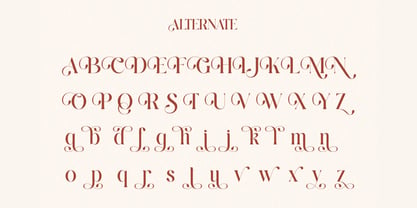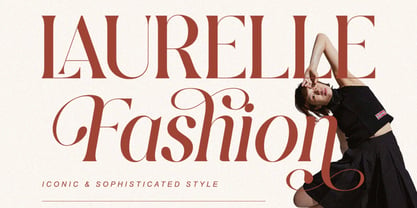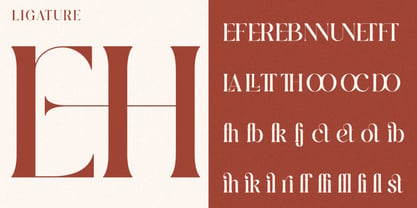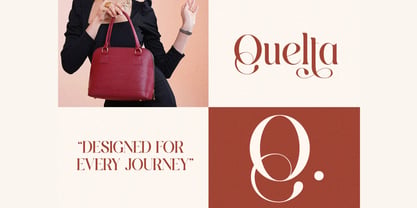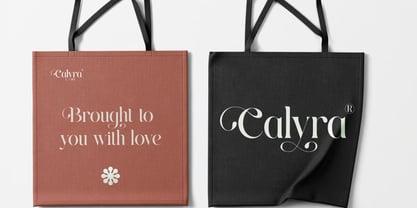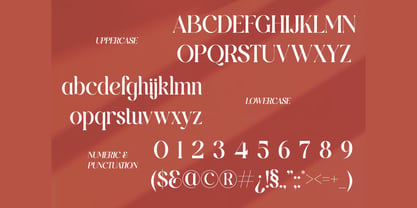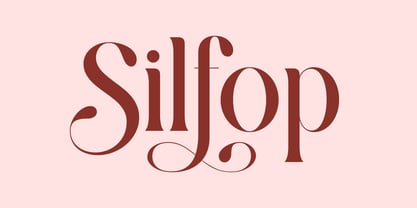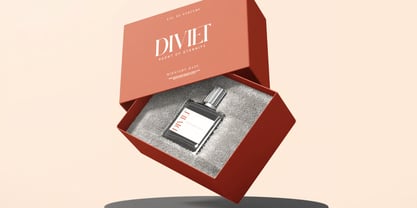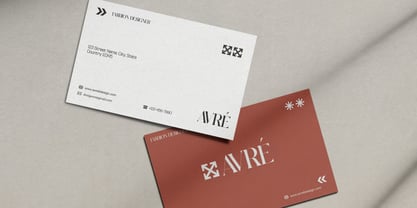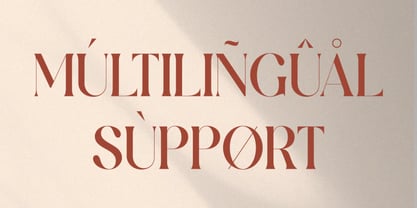
Silfop
Silfop is an elegant swash serif font crafted with graceful curves, expressive ligatures, and refined editorial styling. Designed to embody timeless beauty and sophisticated luxury, Silfop blends romantic elegance with modern professionalism, making it the perfect typeface for premium branding and creative design projects.
Featuring high-contrast strokes, artistic swashes, and beautifully balanced letterforms, Silfop creates typography that feels graceful, feminine, and unforgettable. Its decorative details add movement and personality to every word while maintaining exceptional readability, allowing designers to create captivating visual identities with ease.
Whether you're designing luxury beauty packaging, wedding invitations, boutique branding, fashion editorials, perfume labels, magazine covers, or elegant social media campaigns, Silfop transforms typography into a stunning visual statement filled with charm and sophistication.
Key Features:
• Elegant Swash Serif Design: Beautiful serif letterforms with decorative swash details.
• Regular & Italic Styles: Versatile font pair for expressive typography.
• Decorative Swashes & Ligatures: Stylish OpenType features for premium typography.
• High-Contrast Editorial Strokes: Inspired by luxury fashion magazines and editorial design.
• PUA Encoded: Fully accessible without additional design software.
• Multilingual Support: Includes accented characters for international projects.
• Luxury Display Typeface: Perfect for elegant headlines, logos, and branding.
• Optimized for Print & Digital: Exceptional clarity across all creative platforms.
Perfect For:
• Luxury Branding & Logo Design: Create sophisticated and memorable brand identities.
• Wedding Invitations & Stationery: Add romance and elegance to every special occasion.
• Beauty & Cosmetic Packaging: Ideal for skincare, makeup, perfumes, and luxury products.
• Fashion Editorials & Magazine Layouts: Stunning for headlines, covers, and premium publishing.
• Boutique Branding: Perfect for lifestyle, jewelry, floral, and luxury retail brands.
• Social Media Styling: Create stylish and elegant promotional graphics.
• Luxury Advertising Campaigns: Elevate premium marketing materials with timeless typography.
• Editorial Titles & Book Covers: Bring sophistication to publishing and creative storytelling.
Bring timeless elegance to your creative projects with Silfop—an elegant swash serif font featuring decorative ligatures, artistic swashes, and luxurious editorial styling. Perfect for wedding invitations, beauty branding, perfume packaging, fashion editorials, boutique logos, magazine covers, and sophisticated visual identities that inspire elegance and leave a lasting impression.